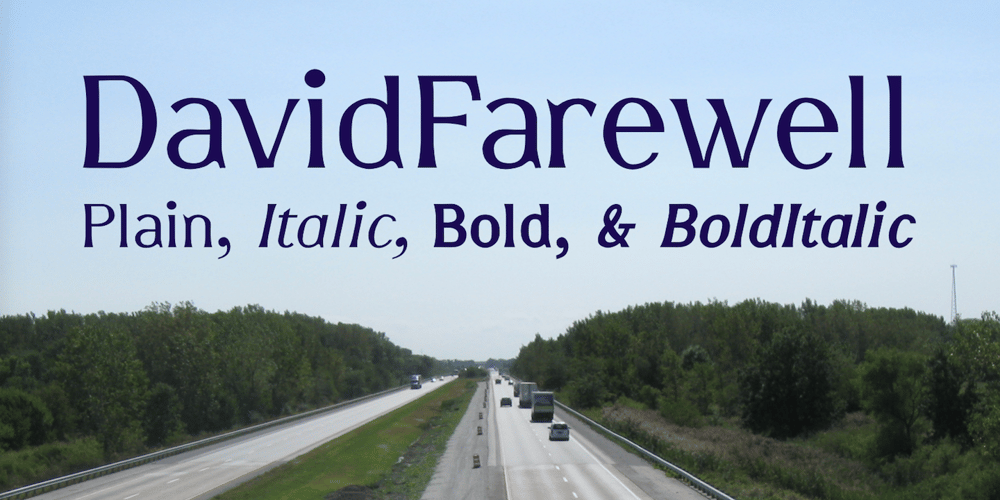
DavidFarewell
DavidFarewell font
DavidFarewell Font Family was designed by Robert Schenk and published by Ingrimayne Type. DavidFarewell contains 4 styles and family package options. David Farewell is a decorative flare-serif typeface family with medium contrast. It has four styles: regular, bold, italic, and bold italic.